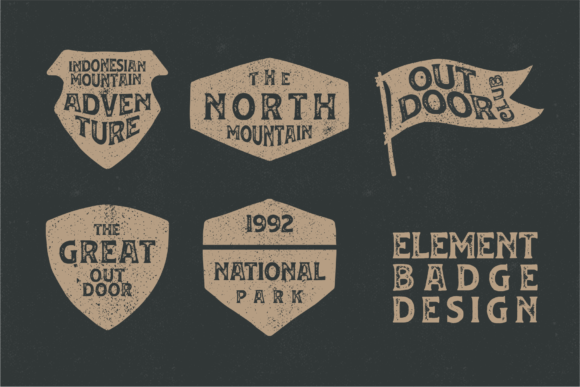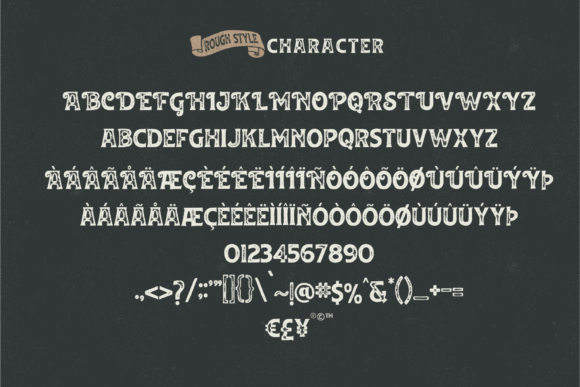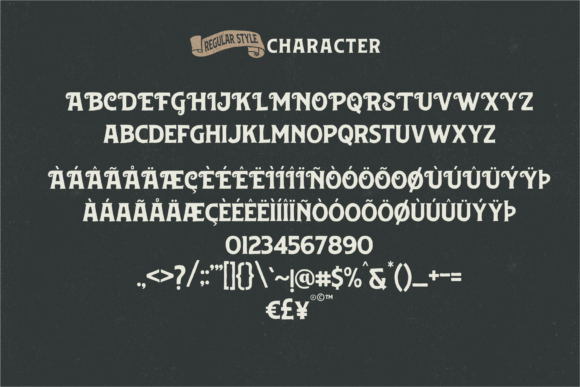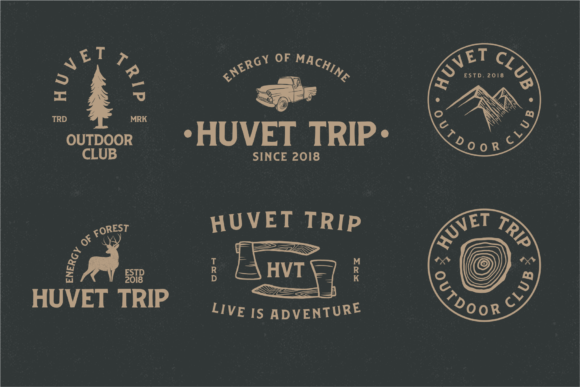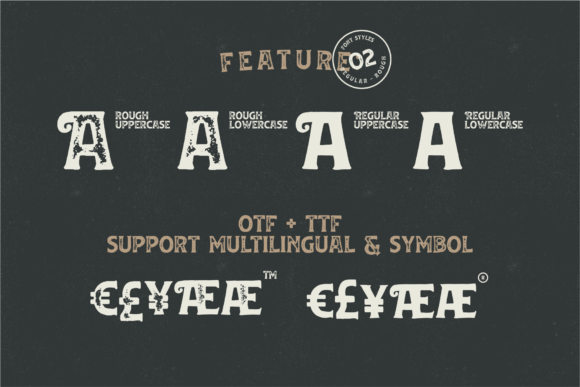
Introduction to Huvet Font Font
Fonts play a crucial role in design, and the Huvet Font font is a typeface that brings both character and versatility to any project. Whether you’re working on a branding project, a website, or a print design, the Huvet Font font offers a unique style that can elevate your work.
| 📌 Font Name | Huvet Font |
| 👤 Author | 24Design Studios |
The Huvet is a striking display font.
Its masculine style makes it perfect for logos, typography, and product labels that require a classic and masculine touch .
Key Features of Huvet Font Font
Why Choose Huvet Font Font?
The Huvet Font font is more than just a typeface – it’s a design tool that helps you communicate your message with style and clarity. Its unique character set and versatile design make it suitable for a wide range of applications, from elegant invitations to bold headlines.
With its carefully crafted letterforms and balanced proportions, the Huvet Font font ensures readability and visual appeal across all mediums.
What makes Huvet Font font special?
The Huvet Font font stands out with its unique design, exceptional readability, and versatility across various design applications.